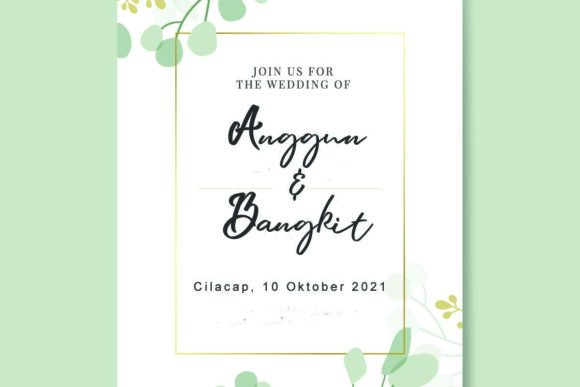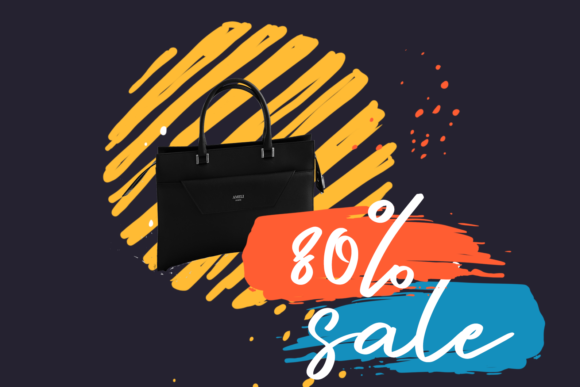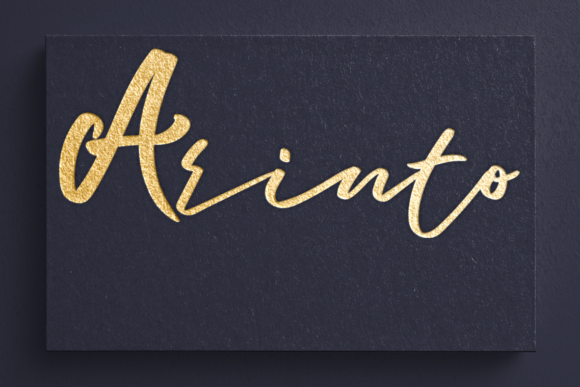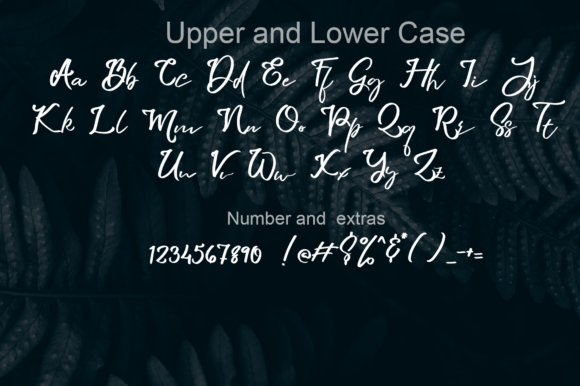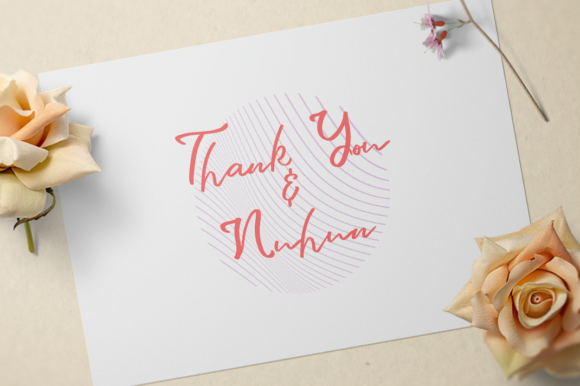
Discover the Magic of Bunton Island Font
Do you remember that moment when you’re brainstorming ideas for a new project, and suddenly, a spark of creativity hits you? You envision the perfect font, one that exudes warmth and character, making your design stand out from the crowd. For designers, finding that perfect font can be a game-changer. Enter the lovely Bunton Island Font, a beautiful handwritten font that’s about to become your new favorite go-to.
With its neat and simple style, the Bunton Island Font is perfect for a wide variety of designs, from invitations and greeting cards to logos and social media graphics. Its lovely flow makes it easy to read and visually appealing, adding a touch of elegance to any project. Whether you’re a seasoned designer or just starting out, this font has the potential to elevate your designs and make them truly special.
Bunton Island Font Key Features
- Font Family: Bunton Island Font is a unique, hand-drawn font designed to evoke a sense of adventure and exploration. It is available in several font styles, including Regular, Italic, Bold, and Bold Italic.
- Unique Characteristics: The Bunton Island Font features distinctive, hand-drawn letterforms with subtle flair and personality. Each character is carefully crafted to evoke a sense of adventure and exploration.
- Character Set: The font includes a comprehensive character set, including uppercase and lowercase letters, numerals, punctuation marks, and special characters, making it suitable for a wide range of applications.
Bunton Island Font Review
I recently had the chance to work with the “Bunton Island Font” and I must say it’s a unique addition to any design project. ✨ The font’s irregular shapes and subtle texture give it a distinctive character that can add a touch of personality to your designs.
- ✨ Unique character: The font’s irregular shapes and texture make it stand out from more traditional fonts.
- ✨ Versatile: The font can be used in a variety of contexts, from headings to body text.
- ✨ High-quality: The font is well-designed and rendered, with clear lines and no pixelation.
- ⚠️ Readability: In some cases, the font’s irregular shapes can make it difficult to read, especially in smaller sizes.
- ⚠️ Limited font sizes: The font may not be suitable for very large or very small font sizes, as the texture and irregular shapes can become distorted.
Overall, I think the “Bunton Island Font” is a great addition to any designer’s toolkit. While it may have some limitations, its unique character and versatility make it a great choice for designers looking to add some personality to their designs.
Getting the Most Out of the Bunton Island Font
To get the most out of the Bunton Island Font, use it for:
– Travel and adventure-related designs
– Whimsical and playful designs
– Creating a sense of nostalgia and retro charm
The Bunton Island Font is ideal for:
– Designing travel brochures and maps
– Creating invitations and event graphics
– Developing branding and logos for adventure-related businesses
Great Vibes is a beautiful, elegant script font with a touch of modernity. It features a flowing, connected feel that makes it perfect for creative projects, such as branding, packaging, and advertising.
Q: Does the Bunton Island Font support special characters and languages?
Yes, the Bunton Island Font supports a wide range of special characters, including accents, punctuation, and symbols. It also supports Latin-based languages, including English, Spanish, French, German, and many others. However, please note that support for non-Latin languages may be limited due to the font’s script nature.